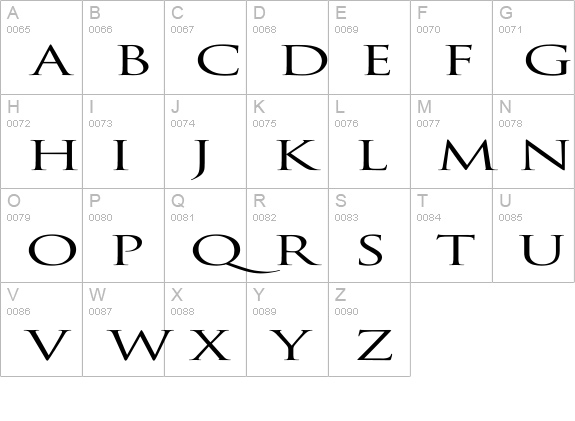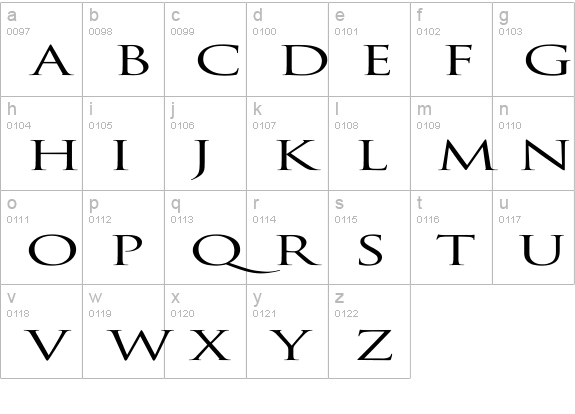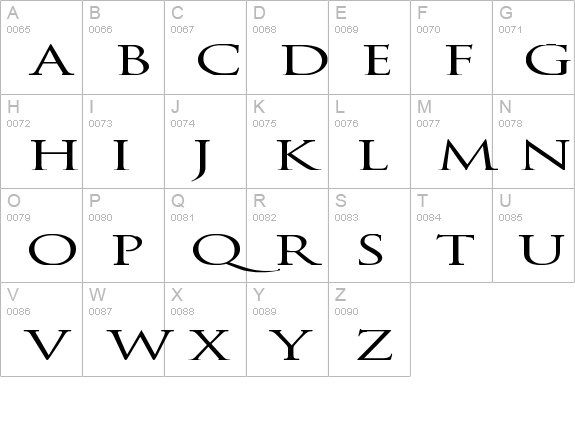
Trajan-Normal Ex Font Details
Trajan-Normal Ex is the standard, neutral variant in the Trajan typeface family \xE2\x80\x94 well suited to general body text, paragraphs, and standard typographic work.
Trajan-Normal Ex is a beautifully crafted font that exudes elegance and sophistication. With its clean lines and timeless appeal, this typeface is perfect for a wide range of design projects. From invitations to logos, editorial layouts to signage, Trajan-Normal Ex adds a touch of class to any visual composition. This font boasts a free-spirited nature, allowing your creativity to flow without any constraints. Its versatile and adaptable design makes it suitable for both print and digital applications. Whether you're designing a poster for a high-end event or creating a modern website, Trajan-Normal Ex effortlessly elevates your work to new heights. What sets Trajan-Normal Ex apart is its availability as a free download exclusively at FontsMarket.com. This means that you can enjoy the beauty and functionality of this font without any cost. FontsMarket.com provides a seamless and user-friendly experience, making it easy for you to access this stunning font and incorporate it into your design projects. With Trajan-Normal Ex, you have the freedom to explore your creativity and bring your visions to life. Its timeless elegance and widespread availability make it a must-have for designers and creatives alike. So why wait? Download Trajan-Normal Ex for free today at FontsMarket.com and unlock the endless possibilities it offers.